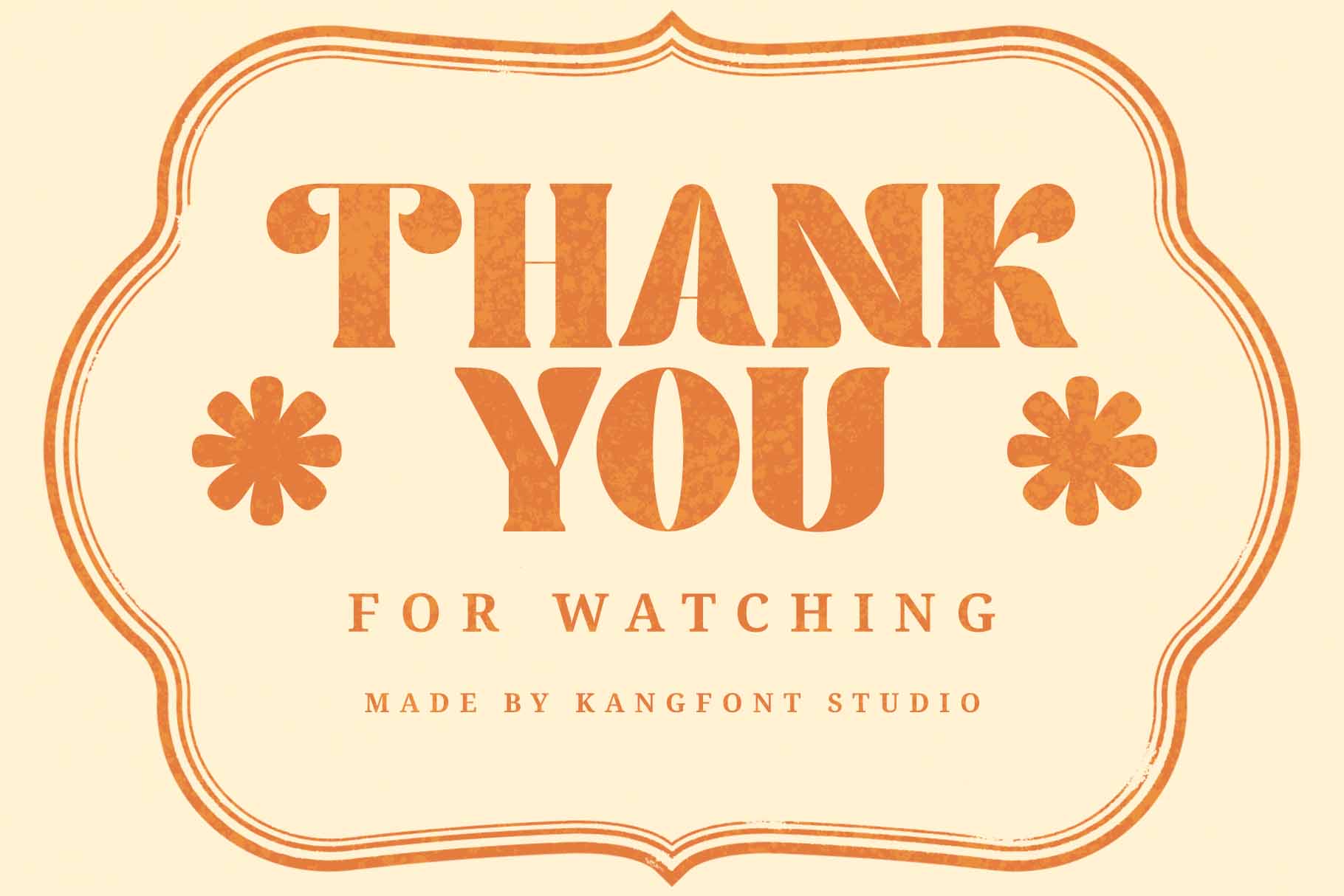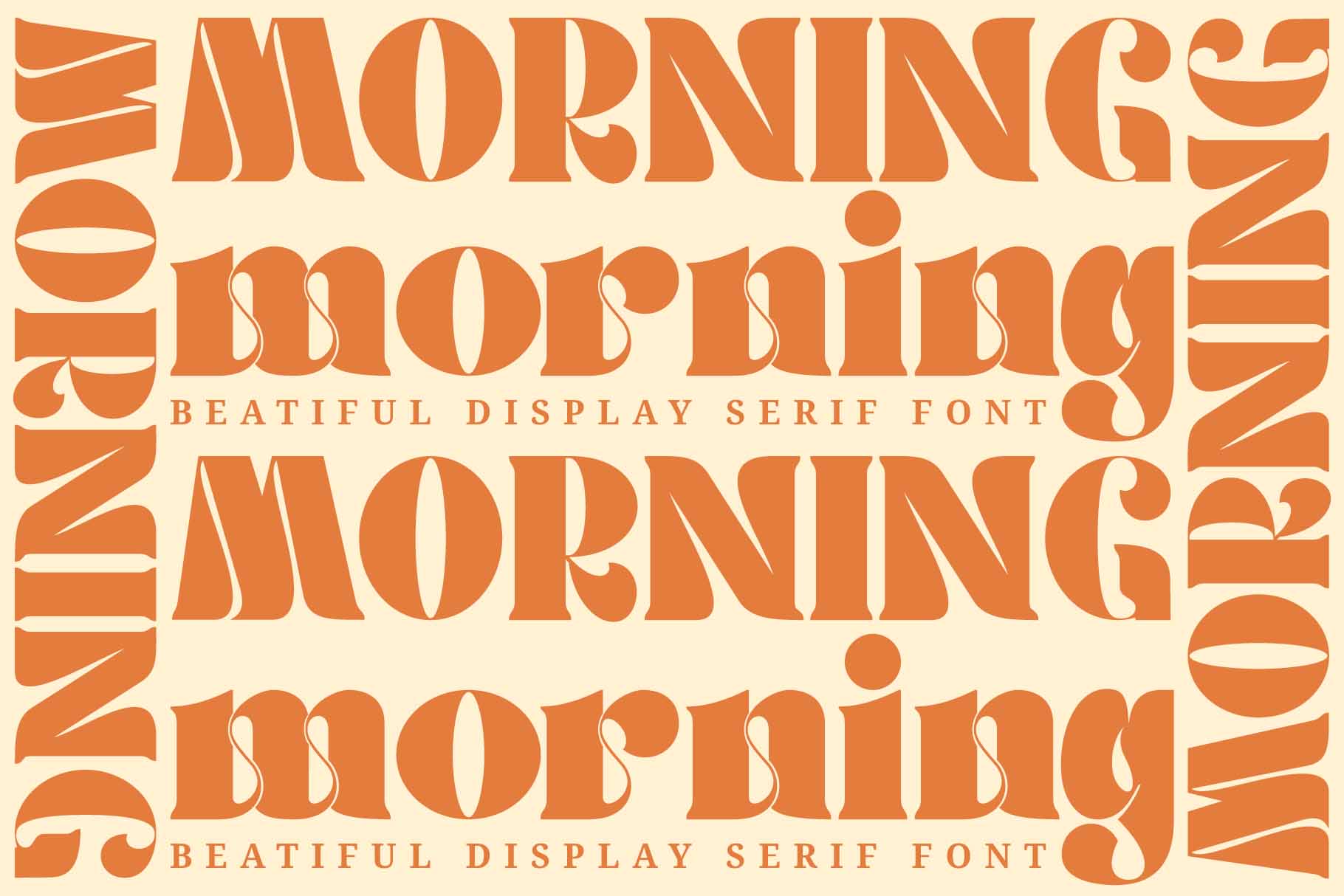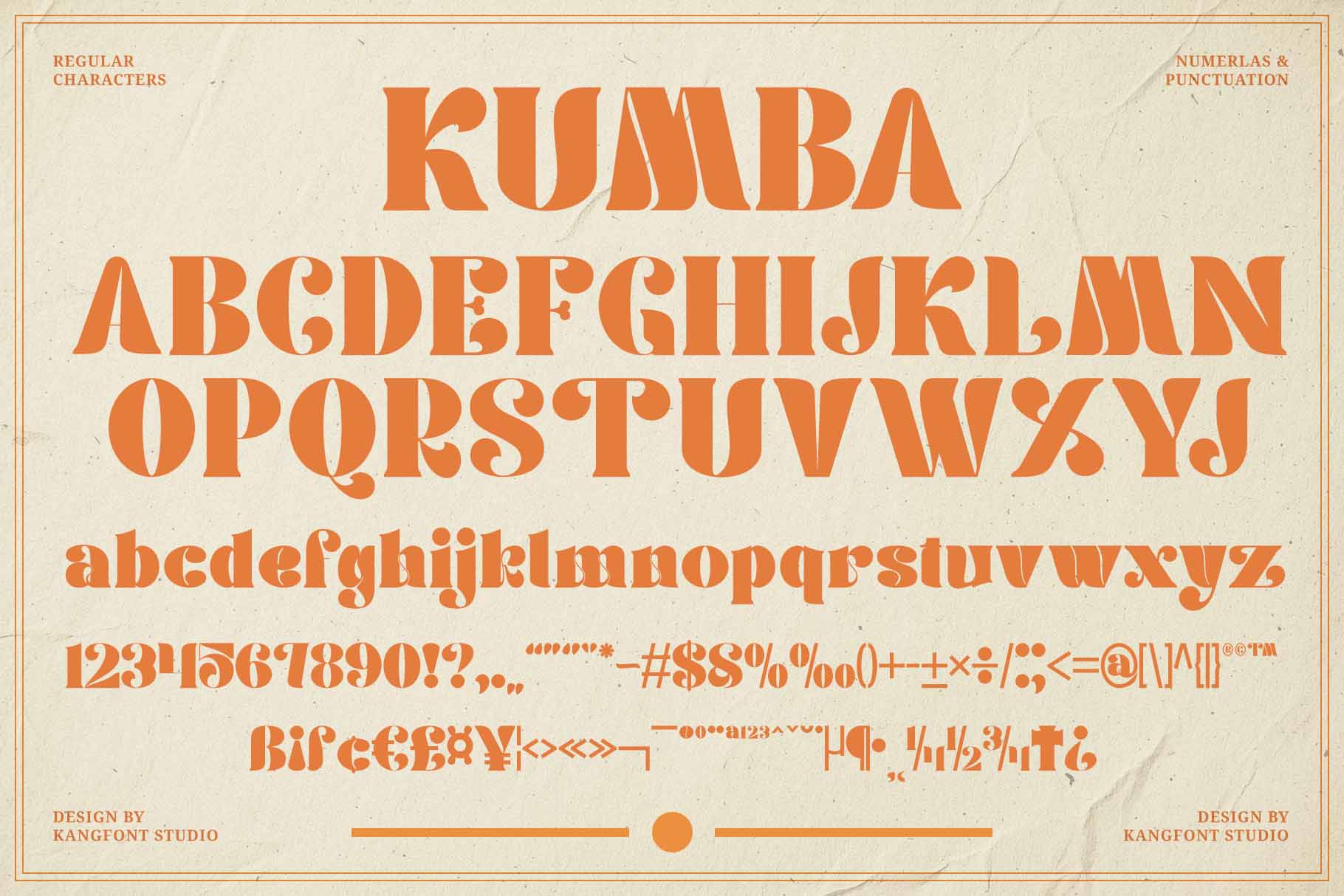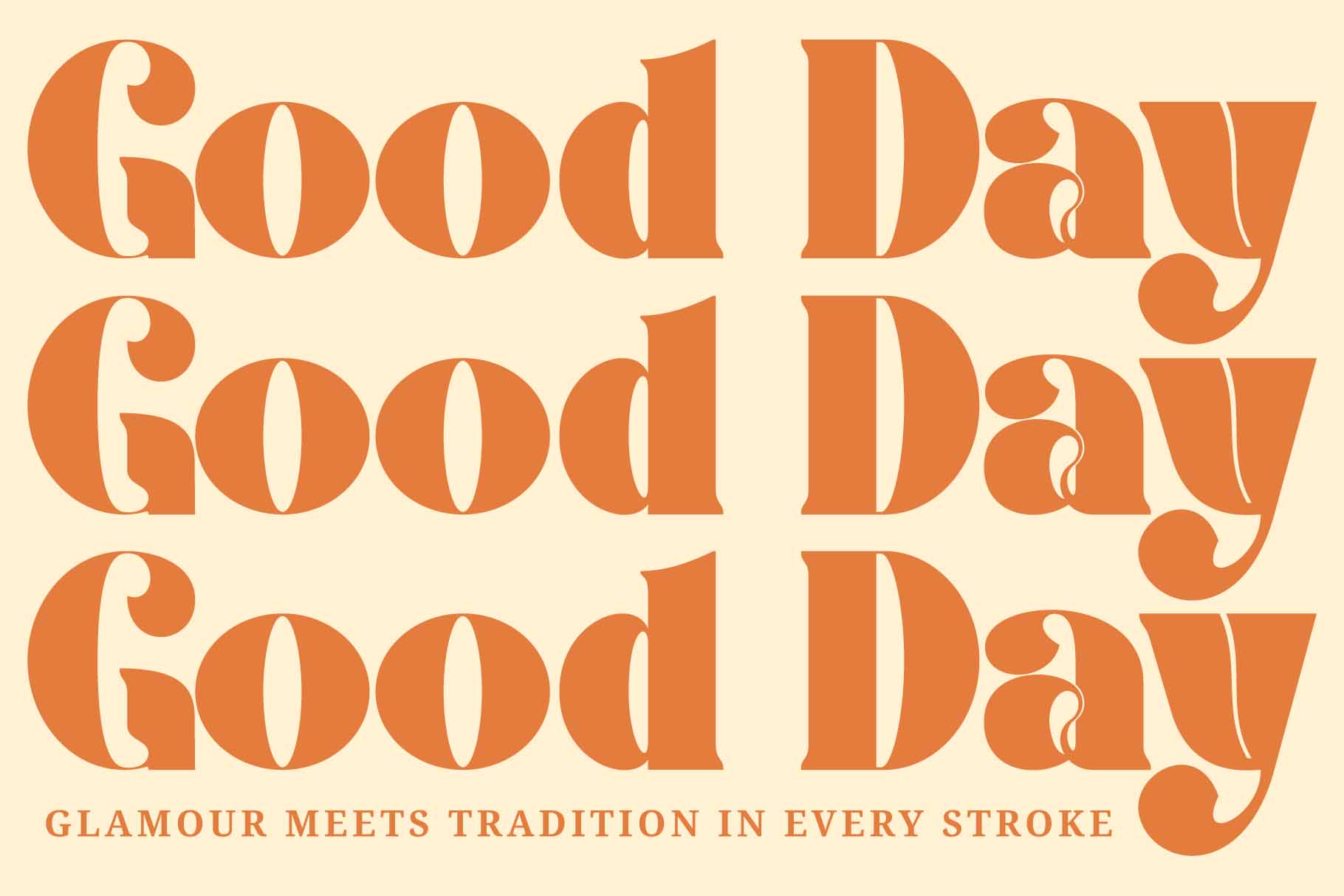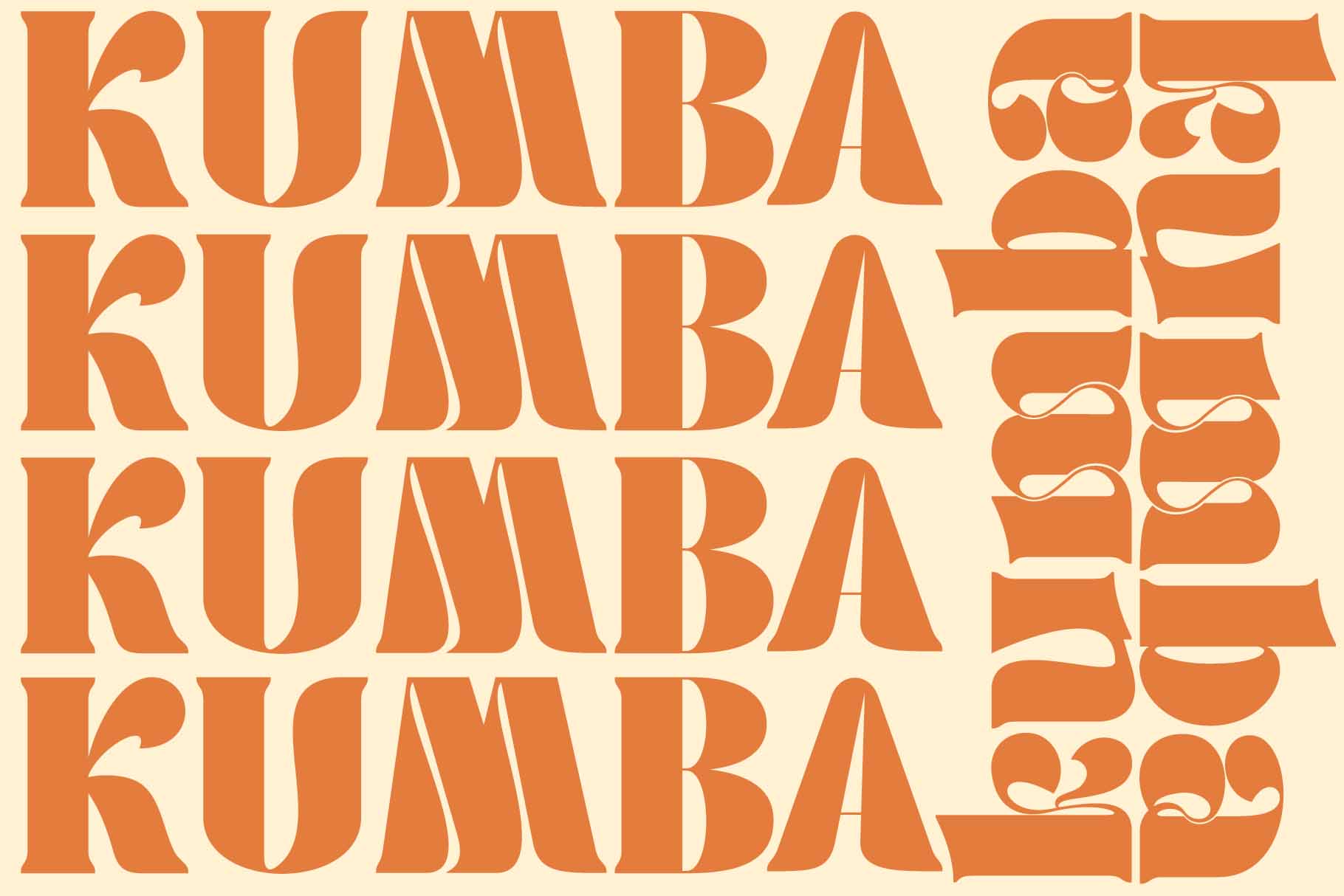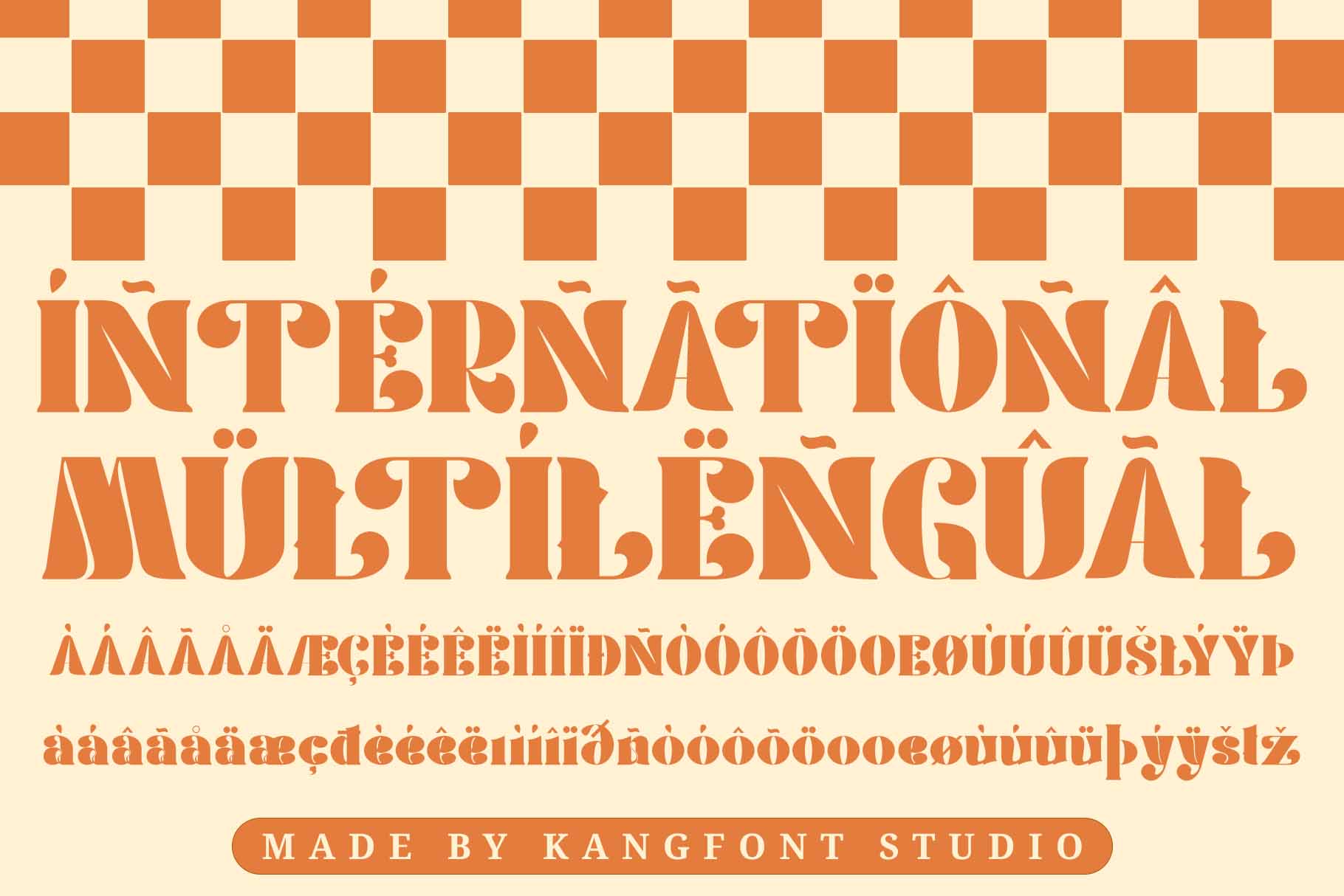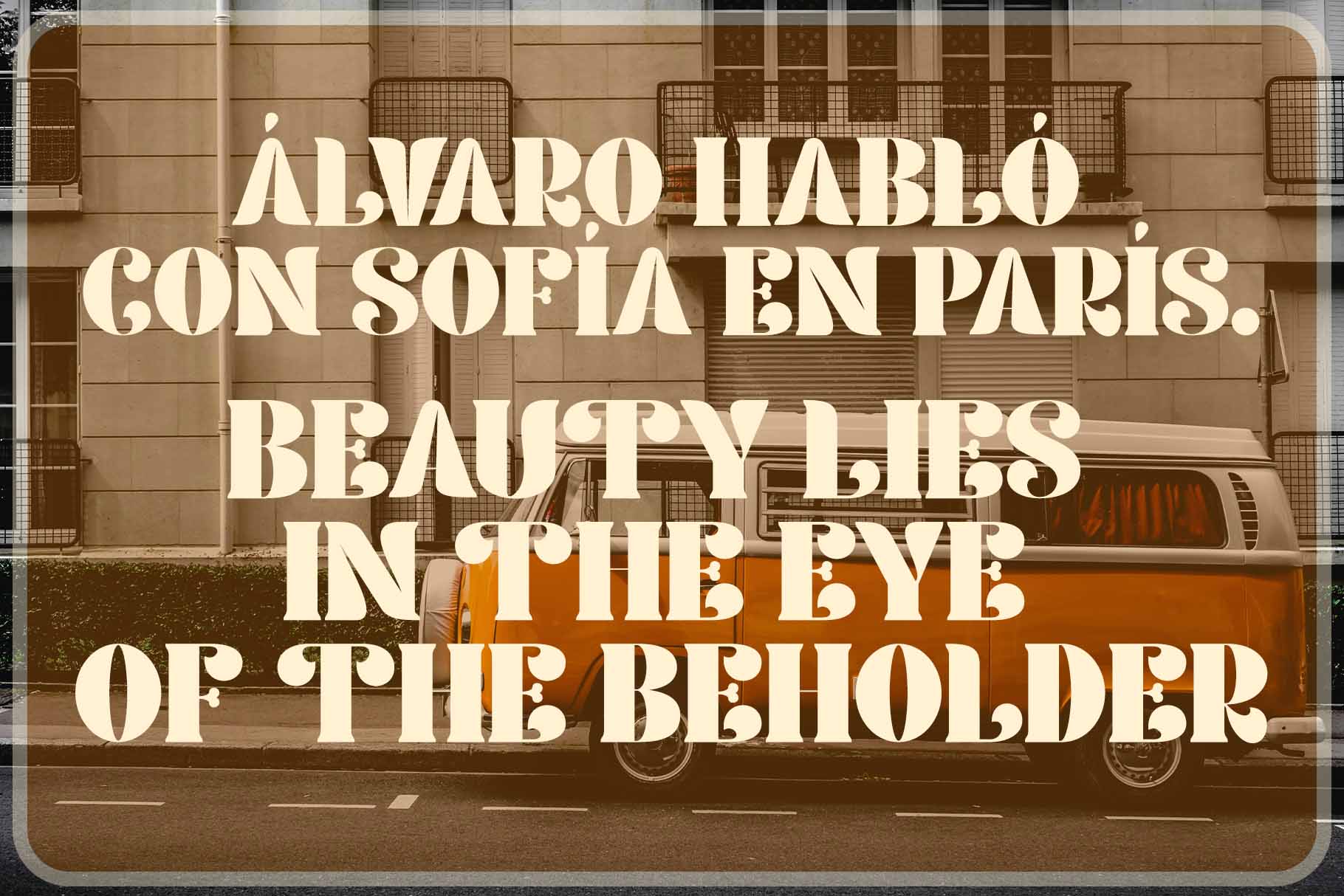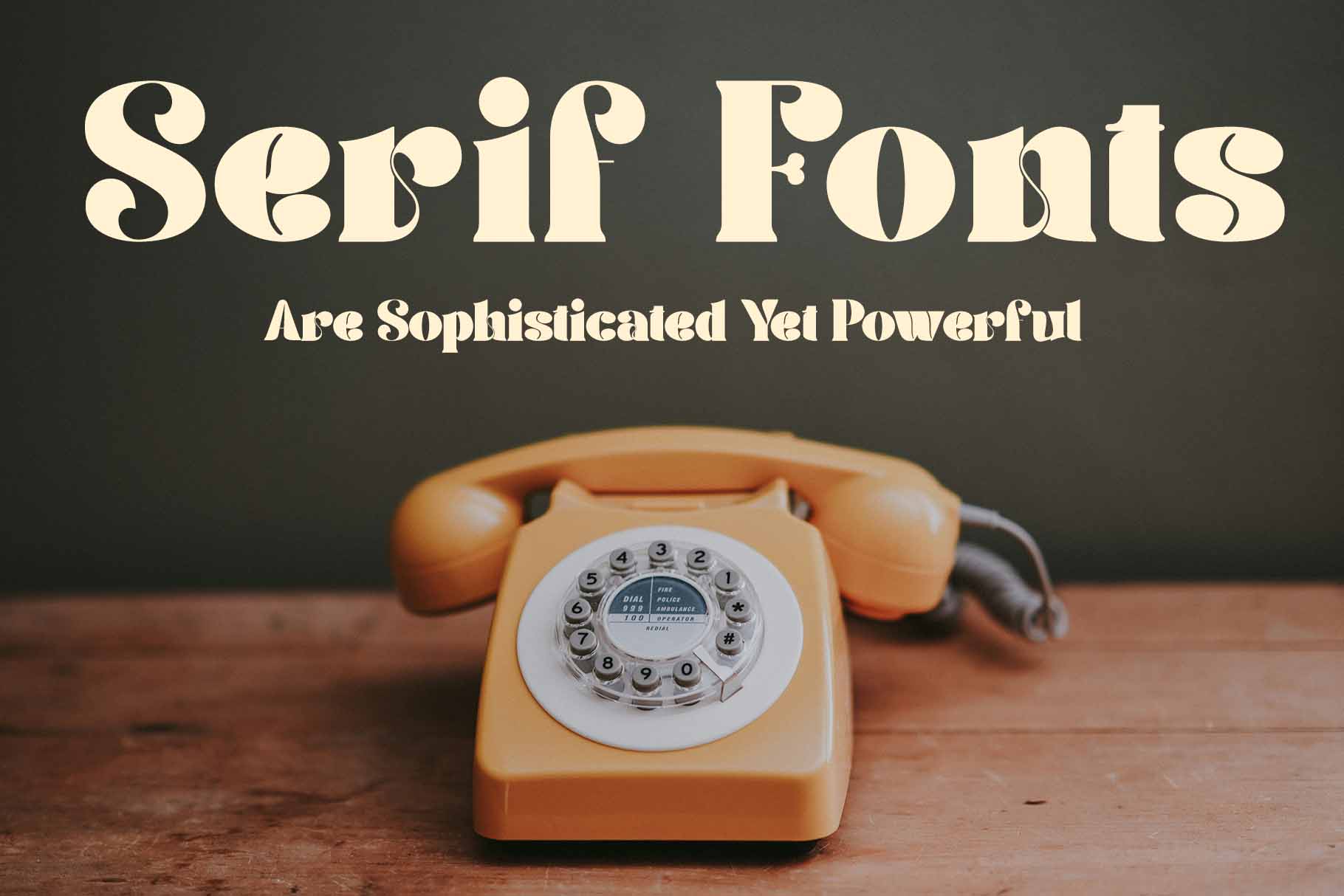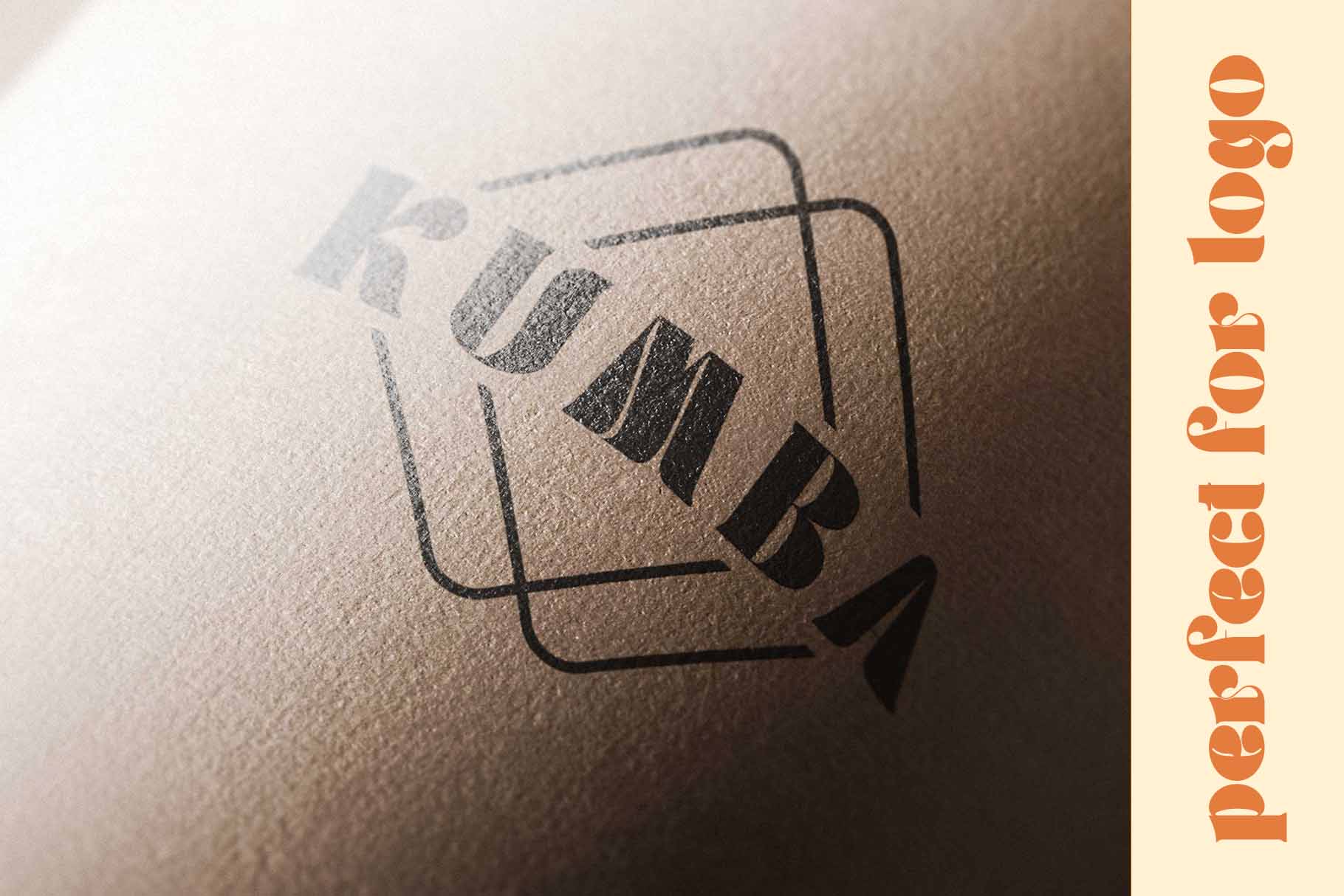
Kumba – Display Serif Font
About Kumba - Display Serif Font
Kumba is a stunning serif display font that exudes beauty and unique character. With bold yet elegant letterforms, Kumba is perfect for a wide range of creative projects, including posters, branding, product packaging, and editorial design.
• Multingual Suport